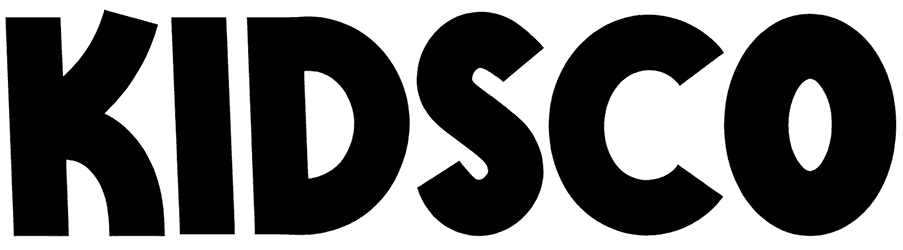
Kidsco Font
It should be noted that the Kidsco font is not only included in the collection of sans serif fonts but also in the collection of cartoon fonts. Even though this font does not support small letters, you can use it for designing t-shirts, birthday invitation cards, and animated video games.
You can rely on this cartoon font to help you make great sales for children’s products, ensuring significant profits for your business.
Font By Titik Creative